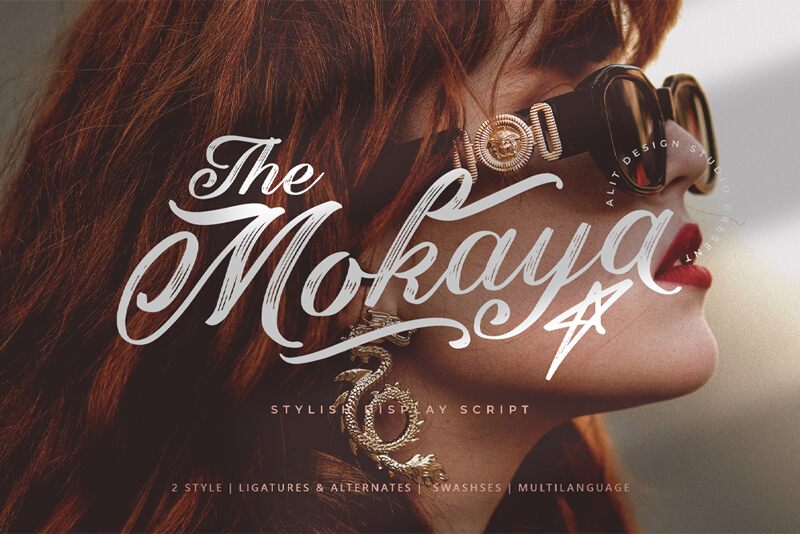
Mokaya, a light brush calligraphy font designed by Alit Suarnegara, is an elegant and timeless choice for creative projects. With its unique flow and dynamic style, Mokaya is perfect for logos, wedding invitations, flyers, posters and more.